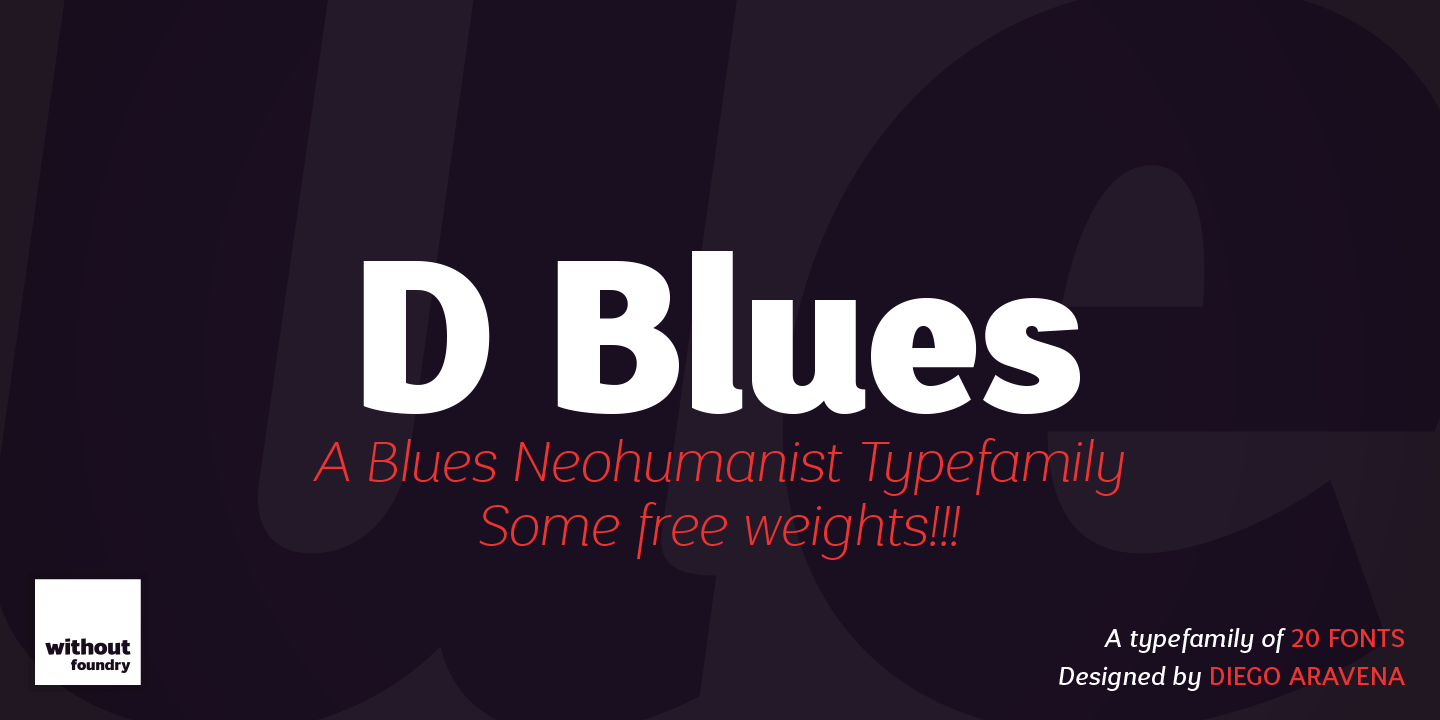
D Blues Font Family
D Blues Font Family is a premium-quality font developed to enhance your work with a polished, modern, and visually elevated look. D Blues its a sans serif typefamily of 9 weights plus matching italics. It is inspired by the neo humanist typefaces with a mix of 20st grotesque sans typeface. D Blues serve very well in web & print design areas, body text, excellent web-font legibility etc… D Blues is equipped with a complete set of opentype features including alternative glyphs, fractions, ligatures and many more. It is perfectly suited for highlighting lettering, magazines, web, interaction design, advertising & logotypes.